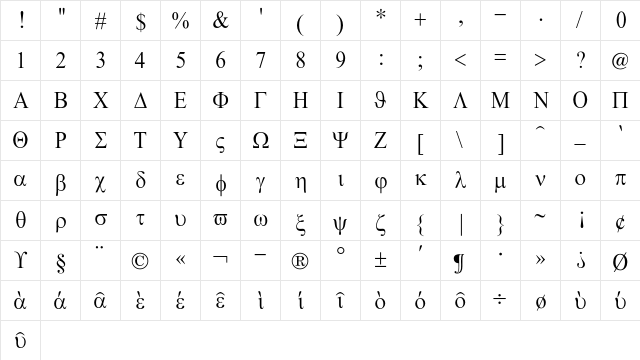
Greco Regular
Design Context for Greco Typeface
Greco is a composed and adaptable typeface that performs quietly and consistently across a wide range of design contexts.